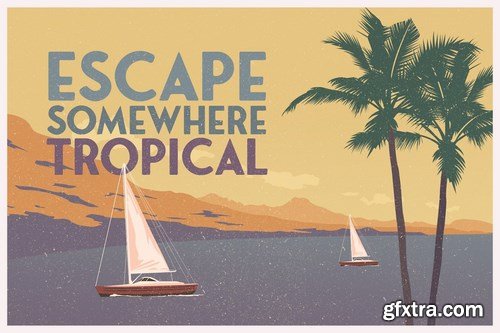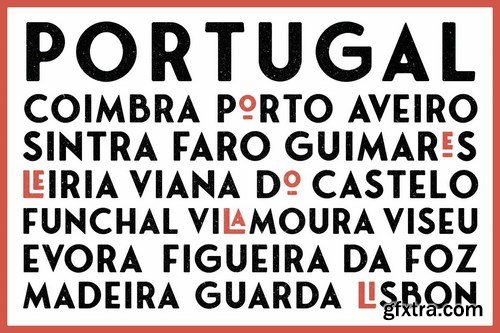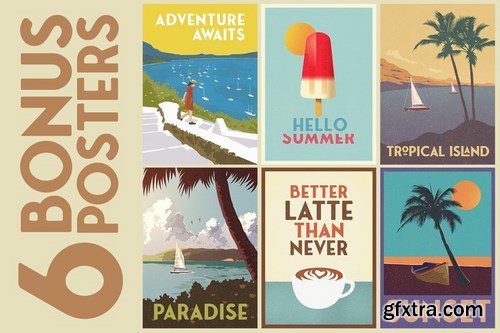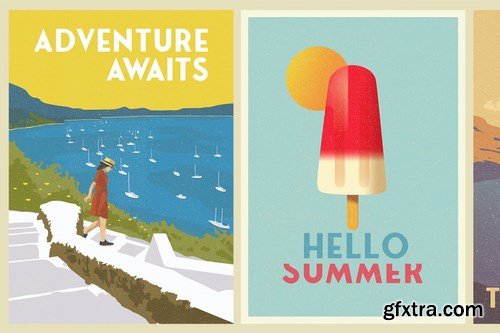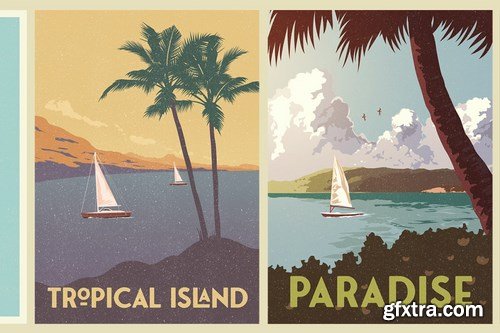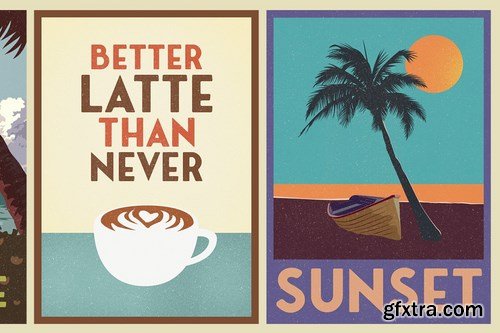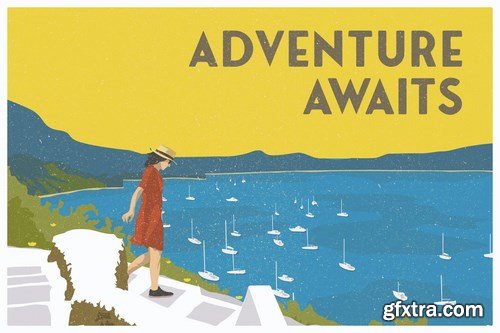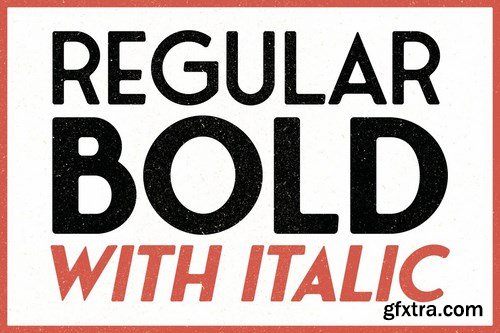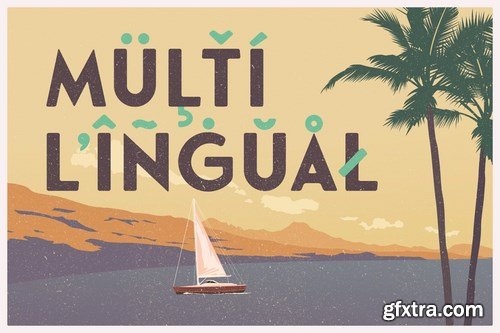
Inspired by Vintage Travel Posters, Fonseca Rounded is a beautiful sans serif font with a contemporary feel. Get inspired by its timeless and classic appeal.
This display sans serif family is perfect for headlines, posters, logos, branding projects, magazines, and packaging. 328 glyphs 4 fonts, 2 weights, 2 styles Stylistic alternates for letter ‘O’ and ‘E’ Special ligatures LA LE LI LO LU 6 Vintage travel posters: 50X70 cm @300dpi editable psd files (Download link included in the PDF) Multilingual support for these languages: Afrikaans Albanian Catalan Croatian Czech Danish Dutch English Estonian Finnish French German Hungarian Icelandic Italian Latvian Lithuanian Maltese Norwegian Polish Portuguese Slovak Slovenian Spanish Swedish Turkish Zulu P A S S W O R D FONS235T0087_GFXTRA